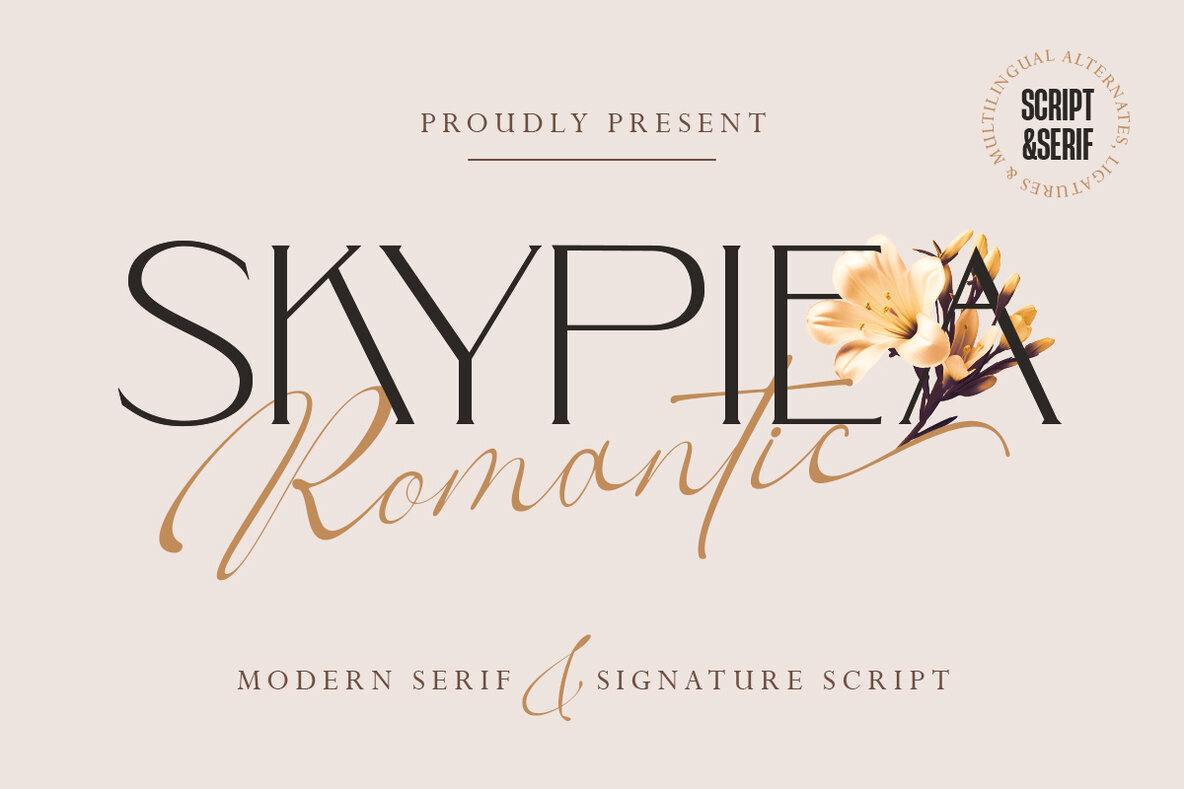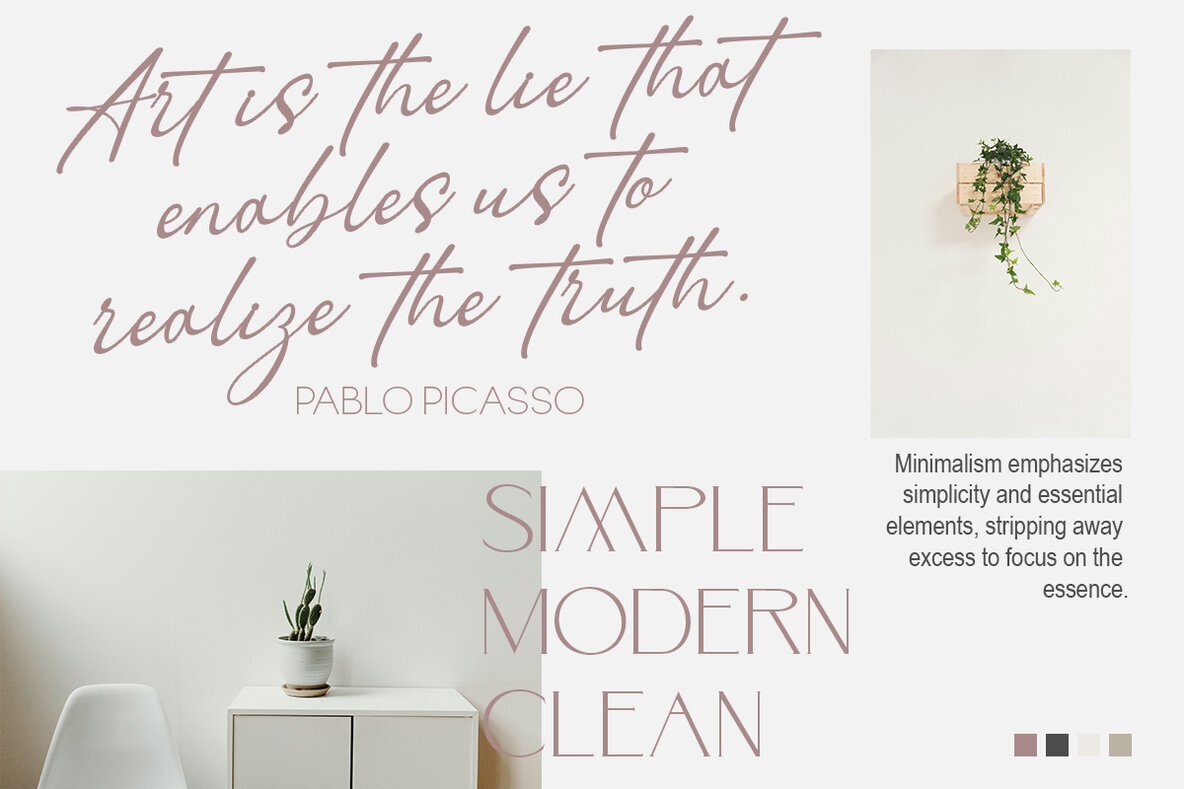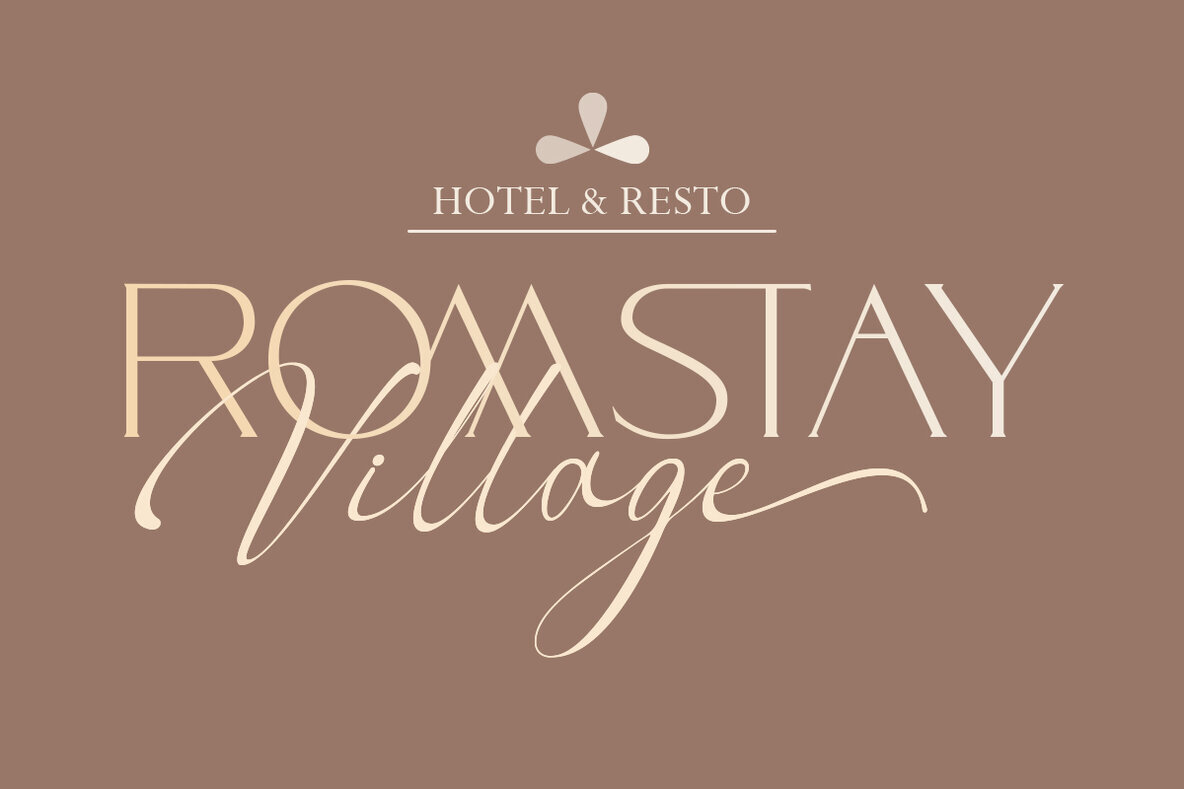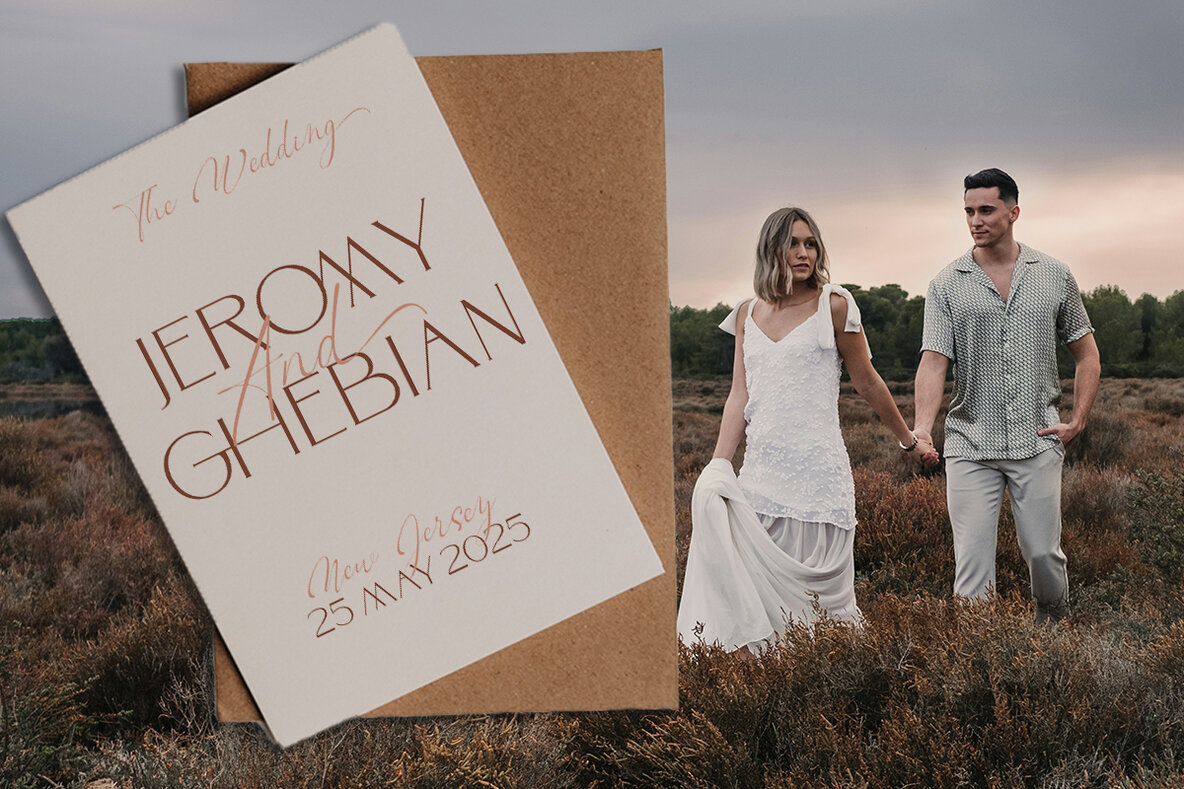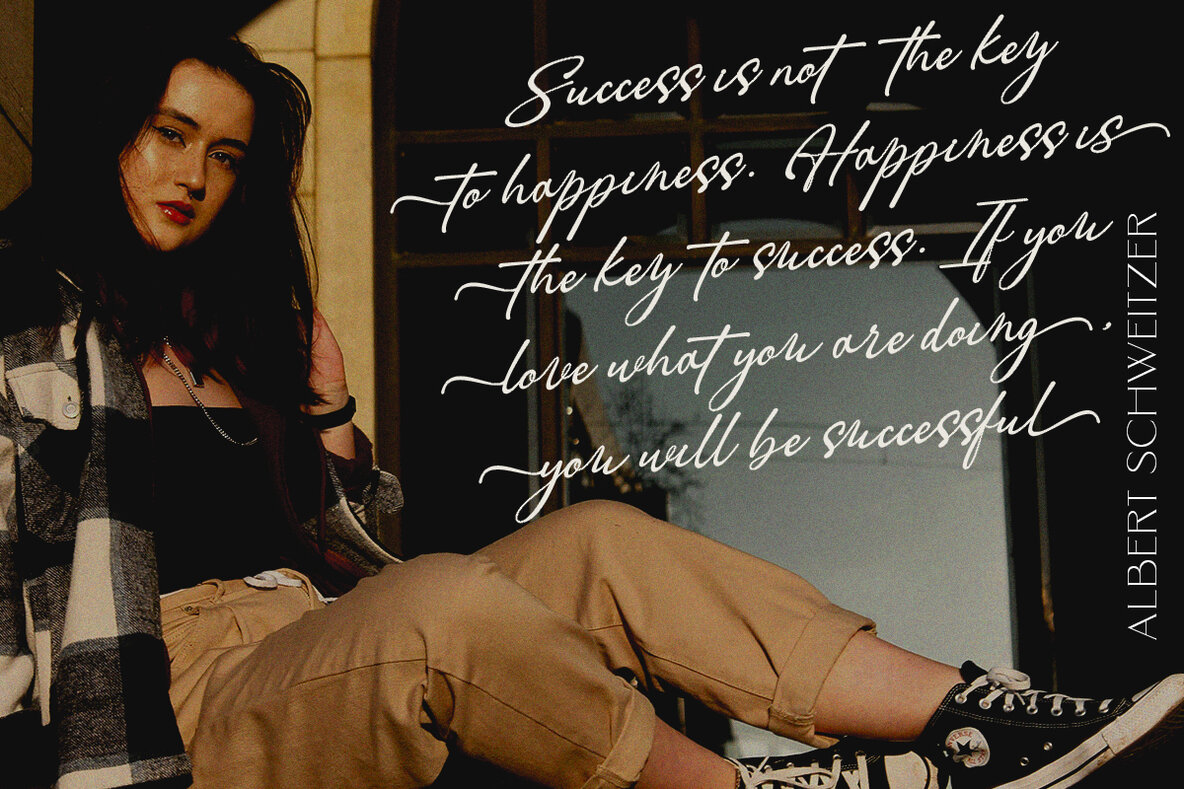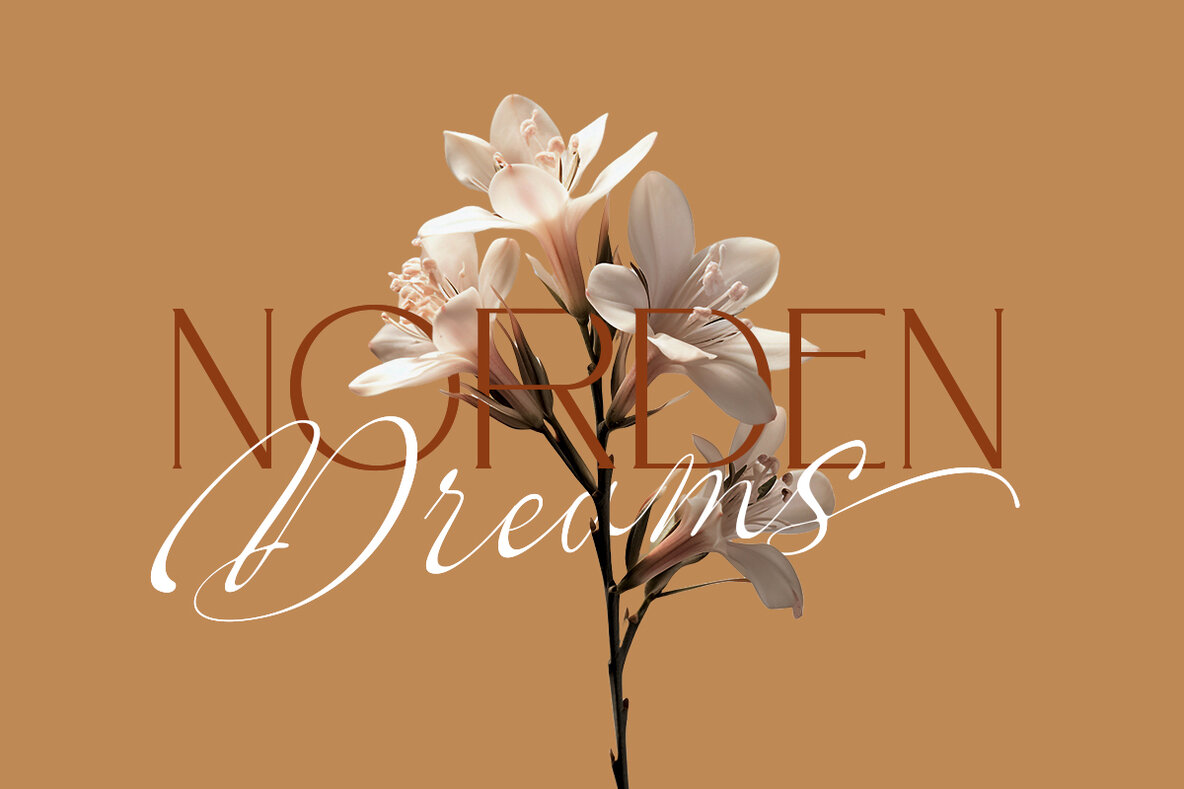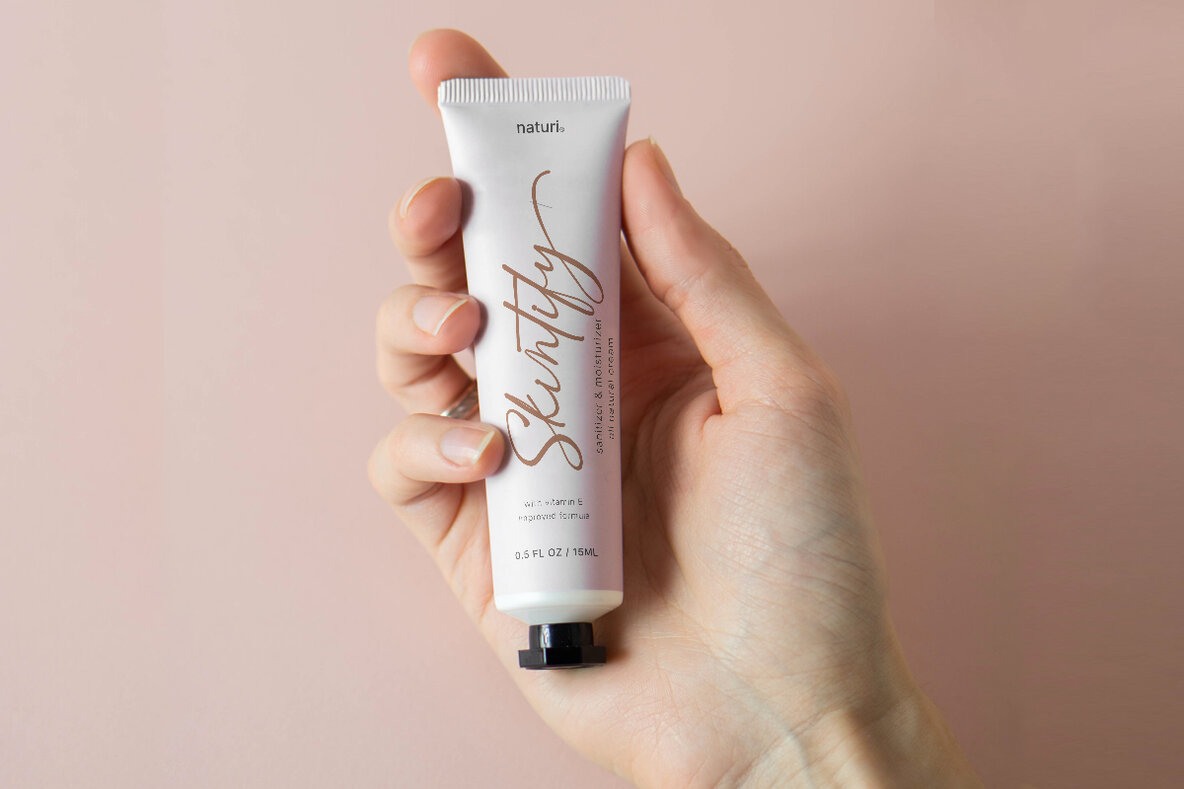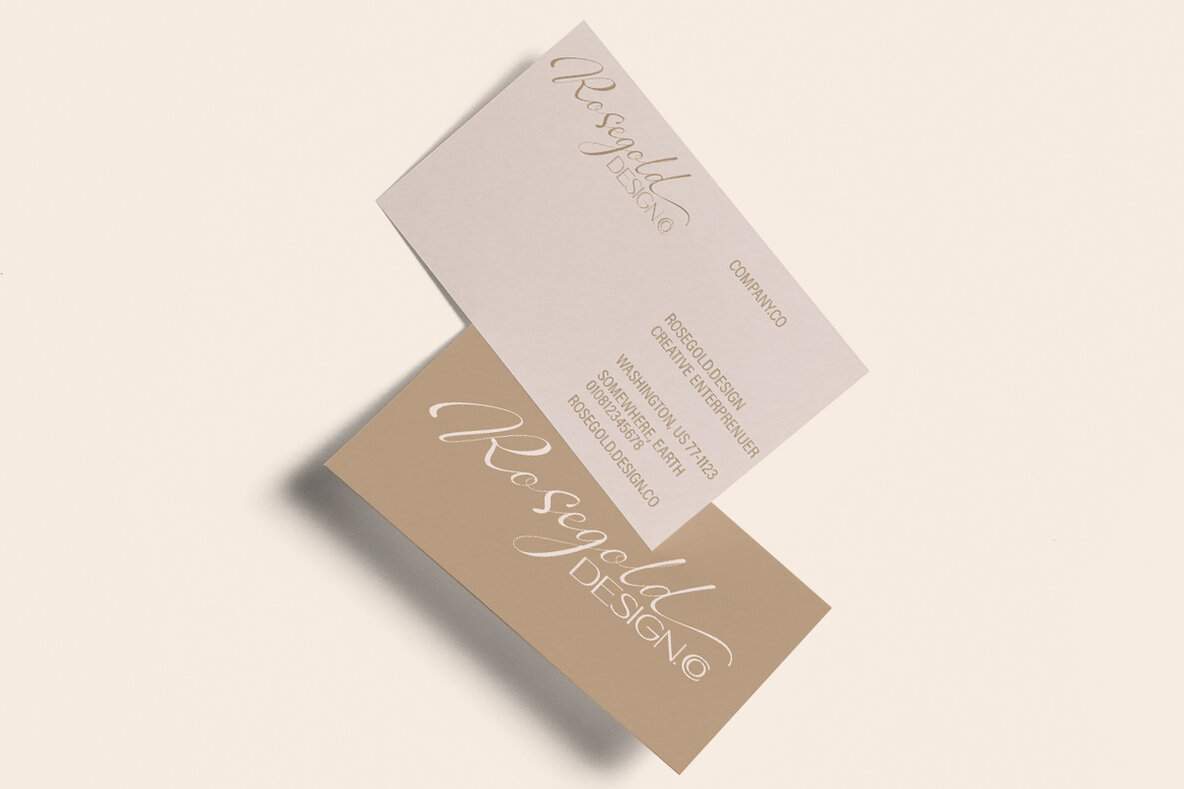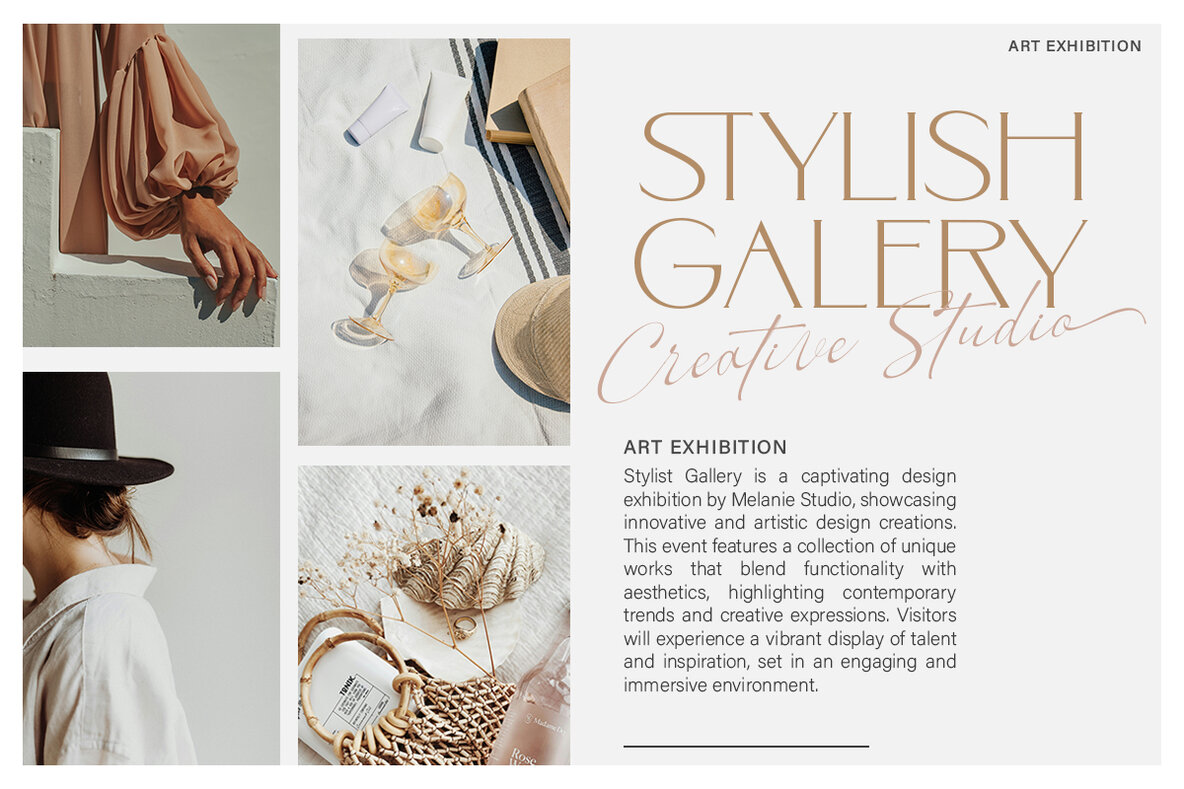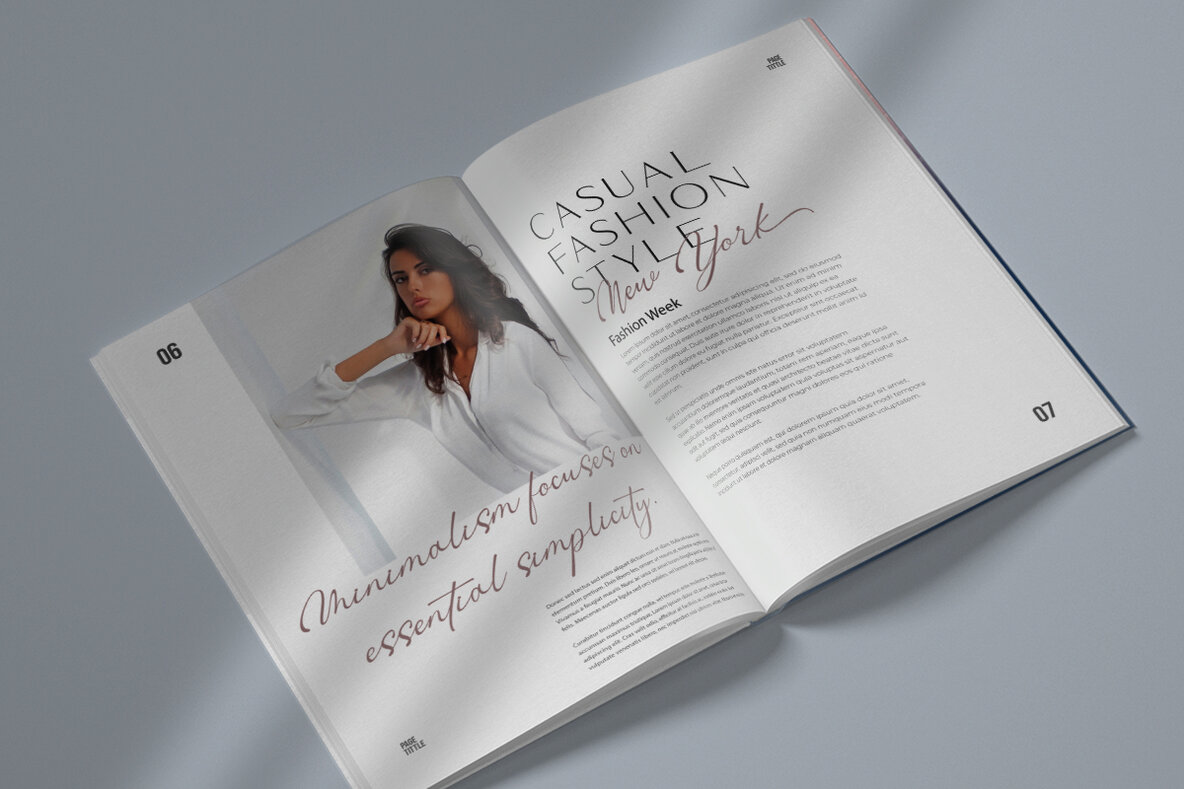
Skypiea Romantic Font
The Skypiea Romantic Signature Font Duo blends modern elegance with versatile typography options, featuring both sans and signature styles. Its elegant design is perfect for enhancing logos, labels, packaging, blog titles, and an array of design projects, including wedding invitations, social media posts, and home decor. The hand serif style adds a touch of sophistication to each creation, while its readiness for use ensures seamless incorporation into your designs.Skypiea Romantic Signature Font Duo